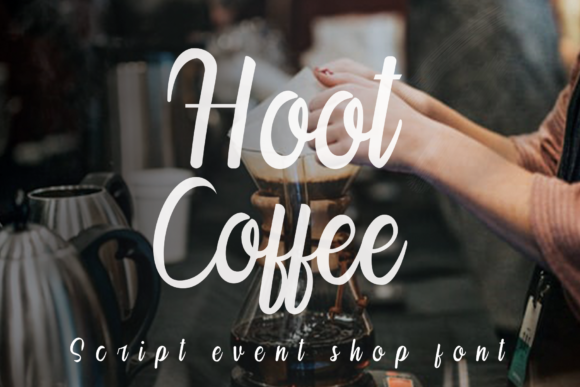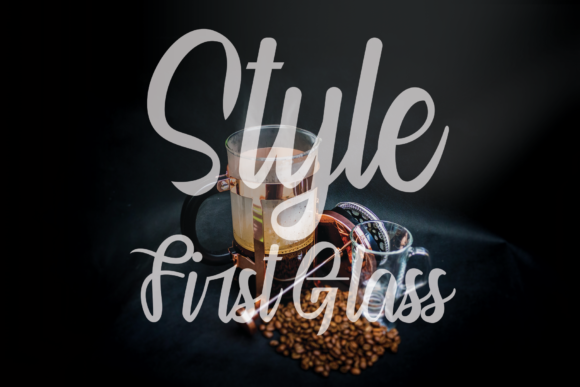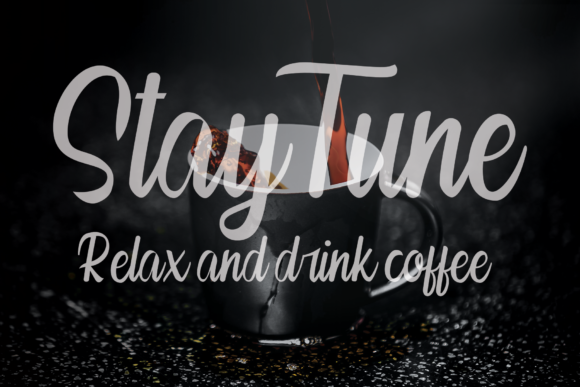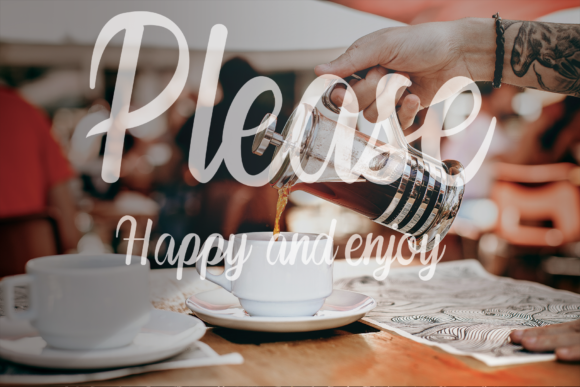
Hoot Coffee Font
About Hoot Coffee Font
Hoot Coffee is a beautiful and flowing handwritten font, designed with a lovely brush pen. It maintains its classy calligraphic influences while feeling contemporary and fresh. Fall in love with Hoot Coffee and bring your projects to the highest levels!